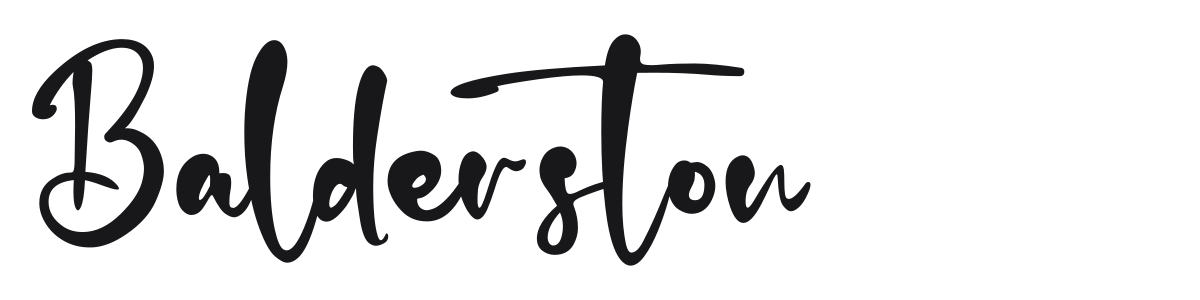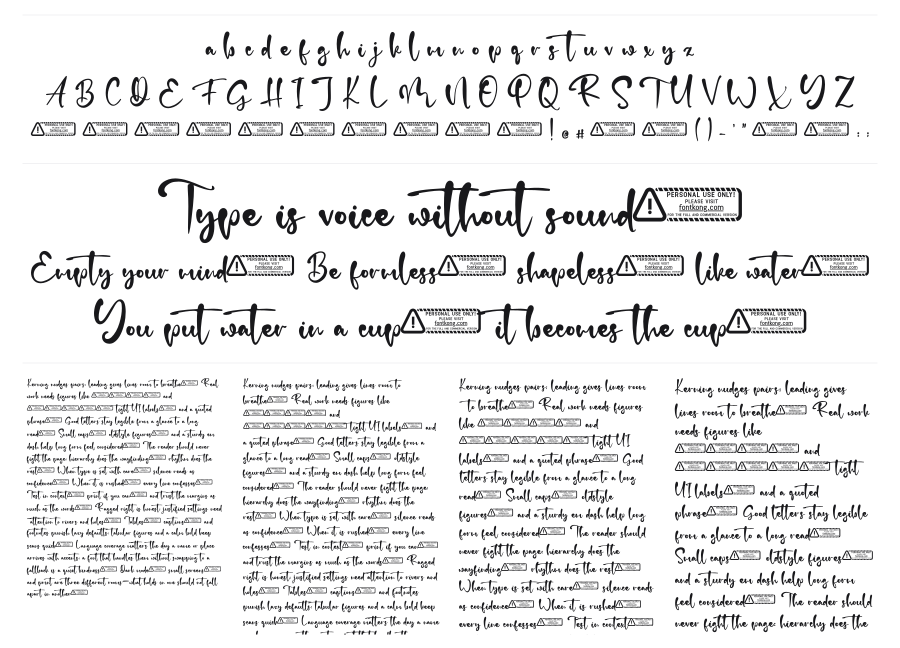
Balderston
Balderston is a contemporary brush script that captures the loose, ink-soaked rhythm of hand lettering. Strong thick-to-thin stroke contrast and a lively baseline bounce give it genuine energy without feeling overwrought. It reads confidently at large sizes on packaging, social graphics, and brand identities that want a personal, handcrafted feel.